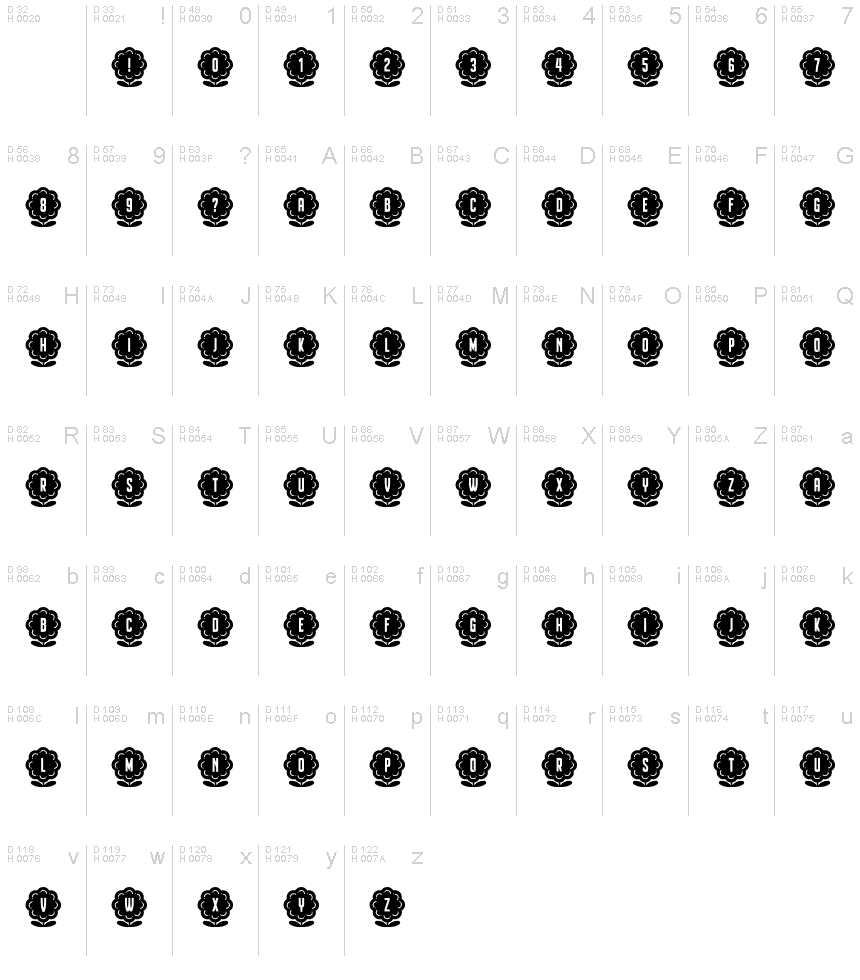
Flower Capitals by Vladimir Nikolic is a stunning display font perfect for adding a touch of whimsy and elegance to any project. The extra-condensed width of this decorative typeface creates a unique, distinctive look that is sure to catch the eye. Use it for wedding invitations, floral-themed branding, or even as an accent in editorial design. Its intricate flower-filled capitals make it an excellent choice for titles and headlines that need to stand out. With its delicate curves and artistic flair, Flower Capitals is the perfect font for any project that requires a touch of beauty and grace.
Flower Capitals